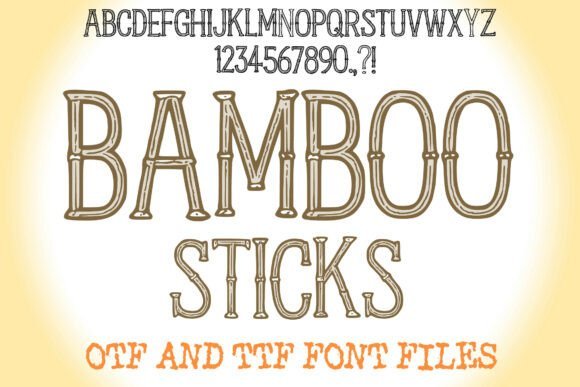
Unleashing Your Creative Potential with Bamboo Sticks Font
Have you ever stared at a blank canvas, waiting for inspiration to strike? You know, that moment when your mind is flooded with ideas, and your creative juices start flowing? It’s a feeling like no other, and it’s exactly what happens when you discover the perfect font – in this case, the Bamboo Sticks Font.
This charming wooden style font is more than just a typographic tool; it’s a gateway to unleashing your creativity. With Bamboo Sticks Font, you can bring your ideas to life by crafting unique words and colors that reflect your personality. Its quirky charm makes it incredibly versatile, allowing you to use it in a wide range of contexts – from branding to digital art.
- Unique Characteristics: Bamboo Sticks Font features a unique, hand-drawn design with a natural, earthy feel, reminiscent of bamboo sticks. The font is perfect for creating a rustic, organic look in designs.
- Style Options: Bamboo Sticks Font comes in two main styles: Regular and Bold. The Regular style is ideal for body text, while the Bold style is perfect for headings and emphasis.
Bamboo Sticks Font Review
At first glance, Bamboo Sticks Font appears to be a fun and quirky addition to any design project. ✨ The unique, hand-drawn style of the font is sure to grab attention and add some personality to your work.
- ✨ Unique, hand-drawn style that adds a personal touch to designs
- ✨ Versatile font that can be used for a variety of projects, from logos to headings
- ✨ Easy to read, even at smaller font sizes
However, as with any font, there are some limitations to consider. ⚠️ Bamboo Sticks Font can be a bit too playful for more formal or professional designs, and may not be suitable for projects that require a more serious tone.
- ⚠️ May be too playful for formal or professional designs
- ⚠️ Limited character set and special characters may be missing
- ⚠️ May not be suitable for projects that require a high level of precision
Overall, Bamboo Sticks Font is a fun and quirky addition to any design project. While it may not be suitable for every project, it’s a great choice for designs that require a bit of personality and flair.
To get the most out of the Bamboo Sticks Font, use it for creating a rustic or bohemian vibe. Common use cases include:
- Outdoor and nature-themed designs
- Handmade and crafty projects